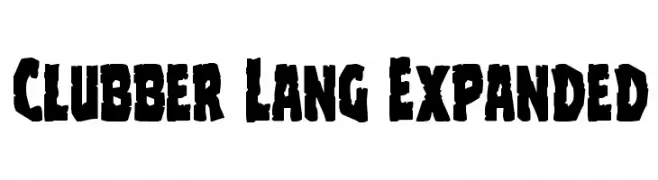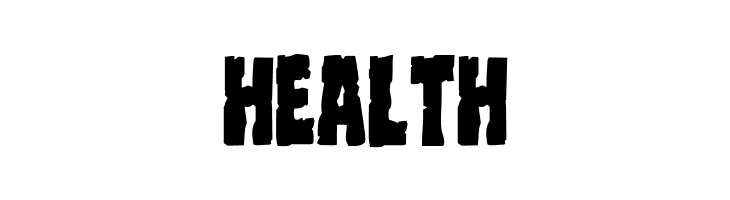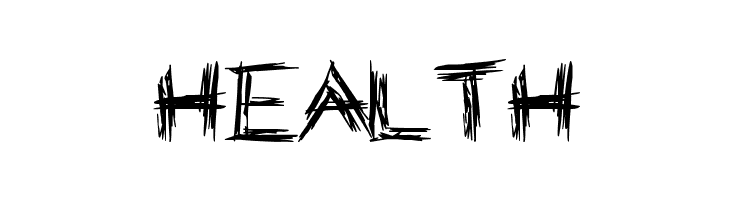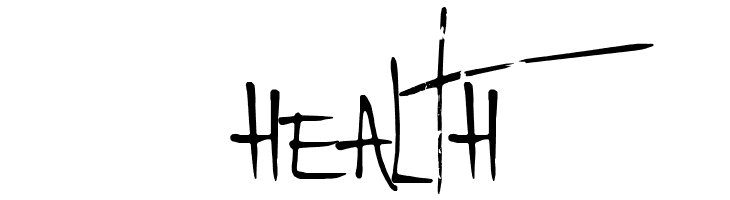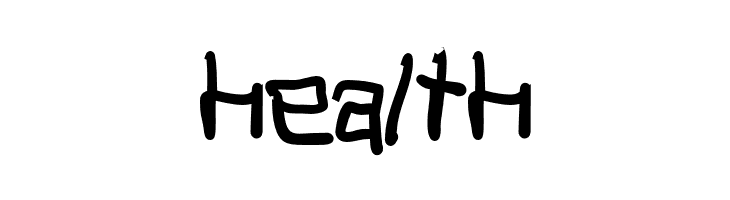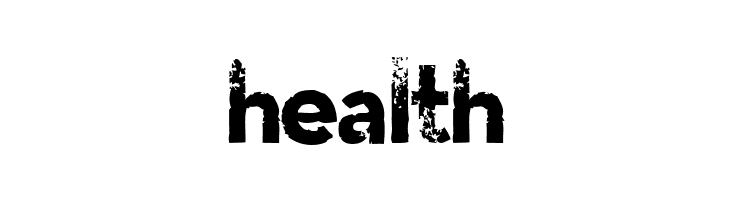
A bold, distressed font with a rugged, grunge-like appearance.
A bold, distressed font with a grunge texture for a rugged, edgy look.
A bold, distressed font with a rugged, hand-drawn appearance.
A bold, distressed font with a grunge aesthetic and rugged texture.
A bold, distressed font with a grunge, urban aesthetic.
A rugged, distressed font with jagged edges and a chaotic, hand-drawn style.
A bold, distressed font with a grunge aesthetic and narrow characters.
A chaotic, distressed font with erratic strokes and a rebellious aesthetic.
A bold, graffiti-inspired font with thick, uneven strokes and a hand-drawn style.
A bold, distressed font with a rough, textured appearance ideal for edgy designs.